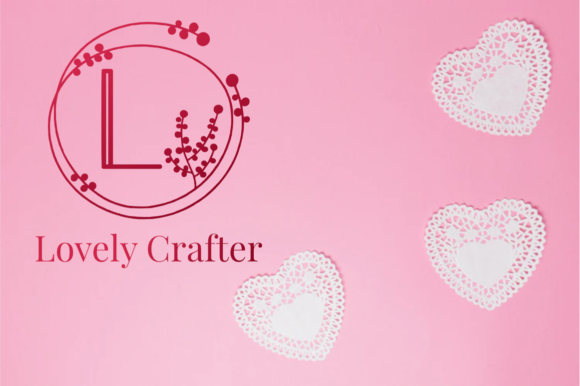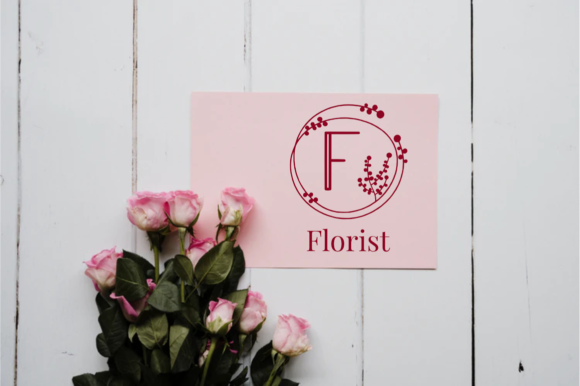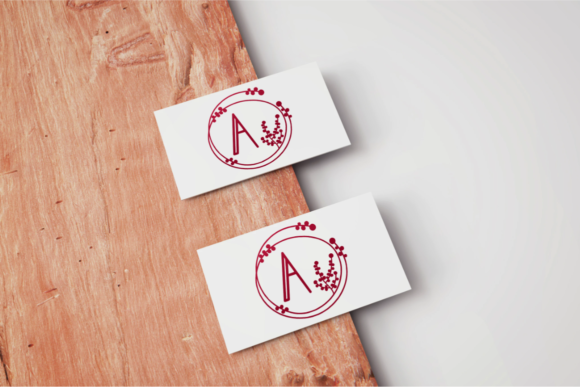
Introduction to Monogram Clara Font
As a designer, have you ever found yourself searching for the perfect font to elevate a romantic wedding invitation or a heartfelt love letter? I know I have. One moment that stands out was when I stumbled upon the Monogram Clara Font – and it was love at first sight. This dainty and unique decorative font has a way of adding a touch of whimsy and elegance to any design project.
What sets the Monogram Clara Font apart is its versatility and high quality. With a transparent background, it’s the perfect design resource for creatives looking to add a delicate touch to their work. Whether you’re working on a creative project or simply need a beautiful font for personal use, the Monogram Clara Font is an excellent choice. And the best part? It’s available for free download, making it an invaluable asset for designers of all levels.
Key Features of Monogram Clara Font
- High-quality, elegant design perfect for creative projects
- Includes a transparent background for versatile usage
- Supports various font sizes and resolutions, ideal for digital and print applications
- Monogram Clara Font is a unique, stylish addition to any design, suitable for a wide range of creative projects
Honest Review: Monogram Clara Font
I recently had the chance to work with the Monogram Clara Font for a creative project, and I must say it’s been a fantastic experience. The font is a great addition to any design resource, offering a unique and elegant touch to any project.
- ✨ High quality and crisp lettering, perfect for both digital and print use.
- ✨ Seamless and smooth design that makes it easy to read.
- ✨ Transparent background option, allowing for easy layering and compositing.
- ⚠️ Limited font size options, which may not be ideal for large-scale projects.
- ⚠️ No bold or italic font styles available, which may restrict creative freedom.
Overall, I’m thoroughly impressed with the Monogram Clara Font. Its high quality and unique design make it an excellent choice for any creative project. With a few minor limitations, I would highly recommend it as a design resource for designers looking for a premium font without breaking the bank.
The Monogram Clara Font is a versatile and elegant design resource that can elevate your creative project to the next level. With its high-quality design and transparent background, it’s perfect for a variety of applications.
For the best results, use the Monogram Clara Font on a transparent background. This will allow you to layer it over other designs and achieve a seamless look. Experiment with different font sizes and styles to add depth and interest to your project.
The Monogram Clara Font is perfect for a variety of creative projects, including:
- Business logos and branding
- Party decorations and signage
- Personalized gifts and stationery